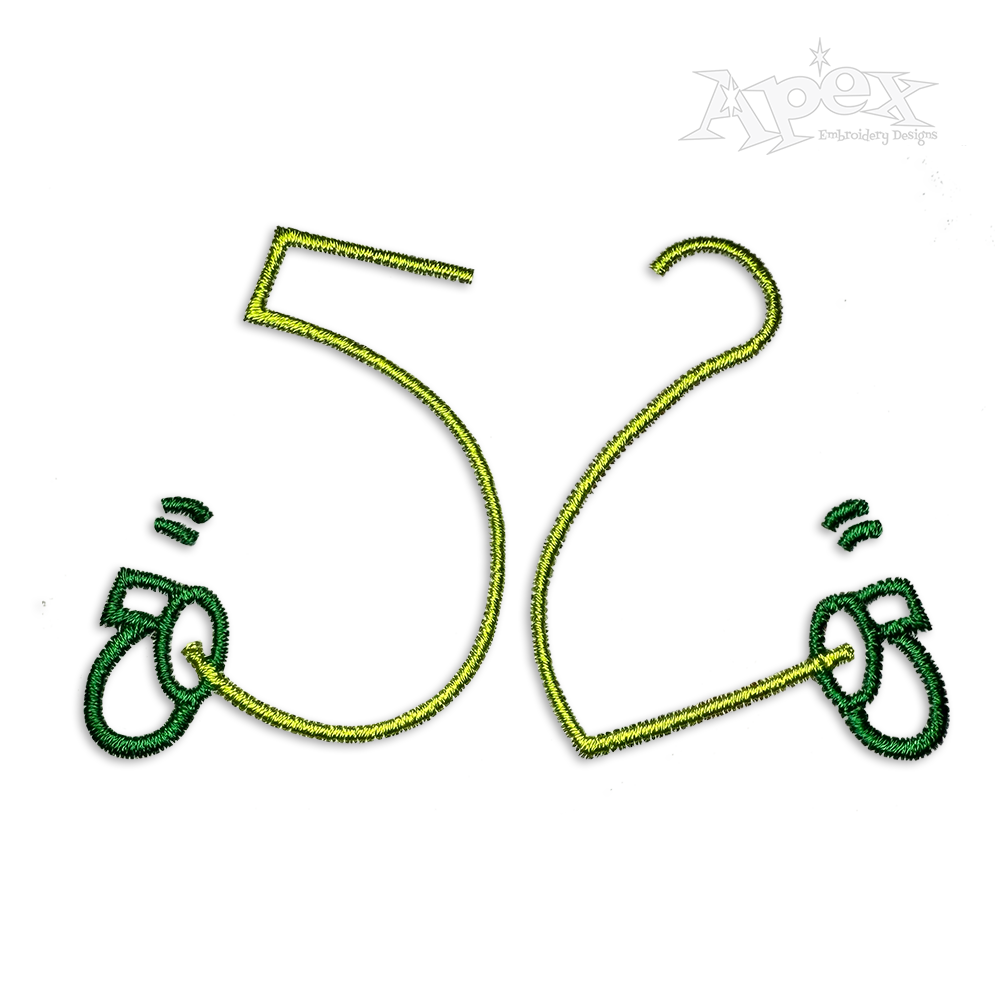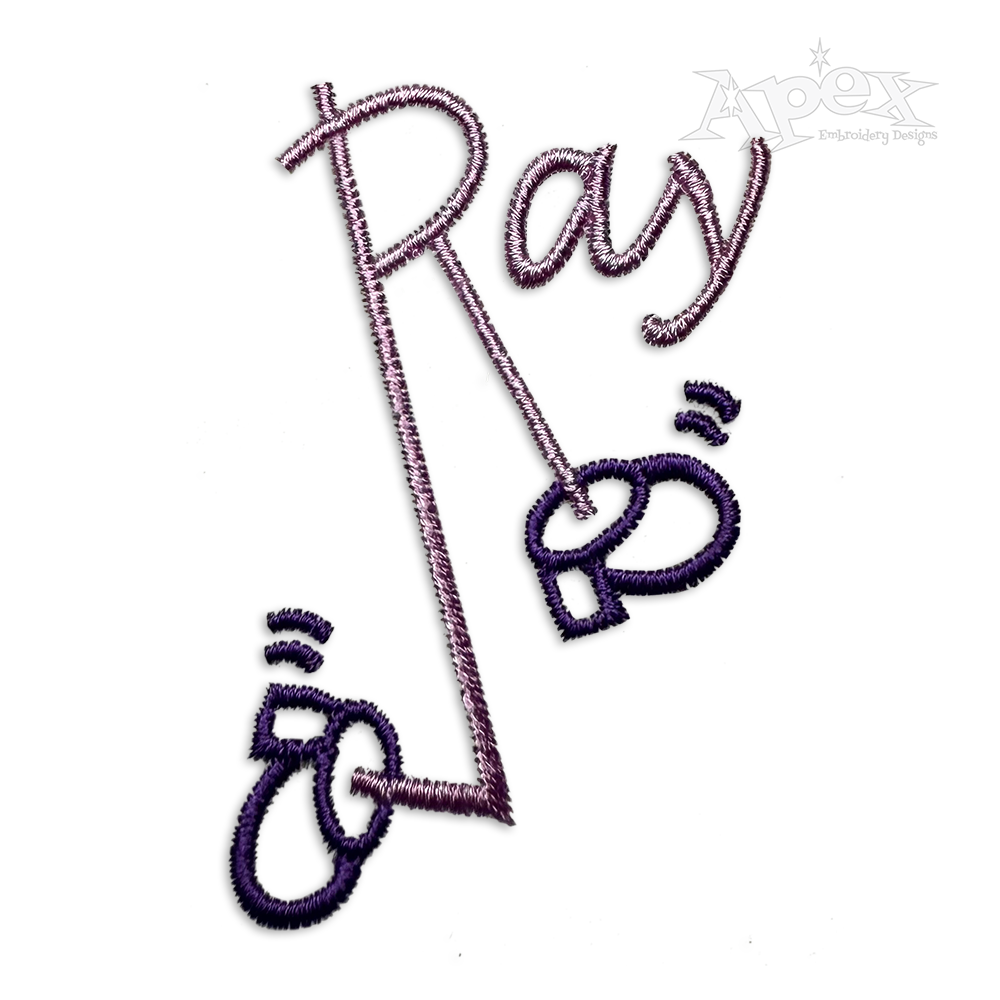
Dance Dancing Shoes Embroidery Font
There is an undeniable magic in the quiet moments before the music begins—the soft dusting of rosin, the whisper of satin ribbons, and the poised anticipation of a dancer ready to take center stage. When digitizing the Dance Dancing Shoes Embroidery Font, our goal was to capture that kinetic elegance and theatrical joy within every stitch. Each dramatic uppercase character gracefully integrates the whimsical charm of dance footwear, blending sweeping structural curves with footwear motifs that leap off the fabric. The result is a vibrant, celebratory monogram style that brings movement, artistry, and bespoke charm to every dancer’s wardrobe and keepsake.
Dance Dancing Shoes Embroidery Font Craft & Letterform Details
Digitizing novelty lettering requires a delicate balance between legible typography and pictorial storytelling. With the Dance Dancing Shoes font, each letterform is built on a solid foundation of underlying travel stitches and multi-directional satin columns. These calibrated stitch angles mimic the tension of arched feet and fluidly flowing ribbons, generating dynamic light play across the rayon or polyester threads.
Special consideration was given to the shoe details nestled against each stroke. Rather than simply overlaying flat artwork, the digitizing architecture carefully alternates stitch density and push-and-pull compensation, ensuring crisp boundaries where the shoes meet the letter stems. The satin columns are engineered to glide effortlessly through high-density fabrics and structured bags while minimizing jump stitches, yielding a polished, professional finish worthy of a standing ovation.